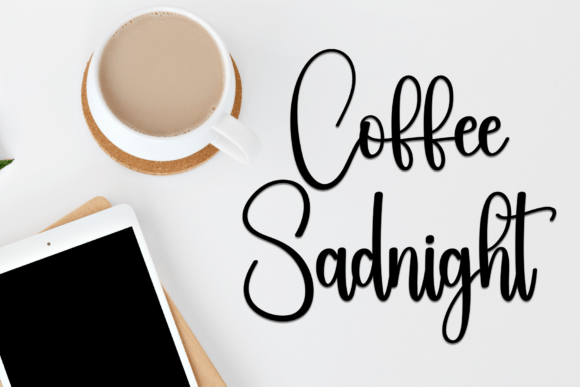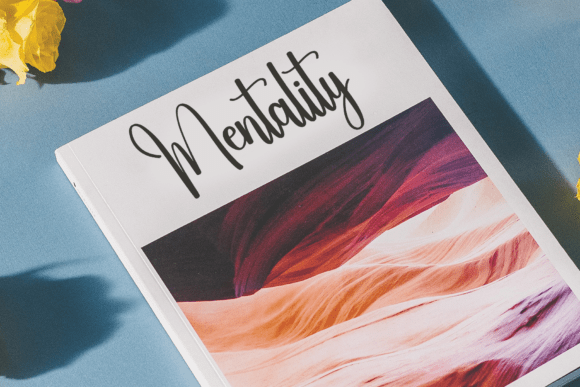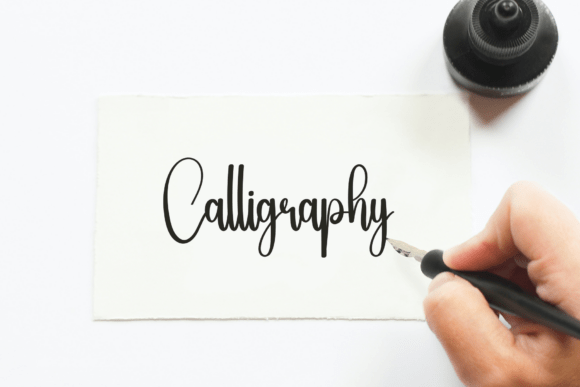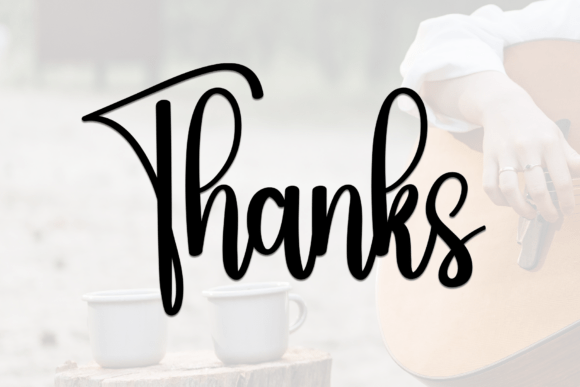
Enter the Aesthetic Font, a stylish script font that exudes creativity and modern elegance. Designed to capture the beauty of hand-drawn calligraphy with a contemporary flair, this font is perfect for logos, invitations, packaging, and social media graphics that demand an artistic and sophisticated touch.
As a valuable tool in every designer’s arsenal, the Aesthetic Font delivers both visual charm and versatility, making it an essential addition to any design project seeking to make a lasting impression.
- Unique Characteristics: Features a distinctive blend of modern and vintage elements, with elegant lines, subtle curves, and a touch of sophistication
Aesthetic Font Review
I’ve had the chance to work with the Aesthetic Font, and overall, I think it’s a solid choice for designers looking for a visually appealing font. ✨ Here are some things I like about it:
- Unique style: The Aesthetic Font has a distinctive, hand-drawn feel that sets it apart from more generic fonts.
- Customization options: It’s available in a range of weights and styles, making it easy to find the perfect fit for your project.
- Great for headings: The font is particularly effective for headings and titles, where you want to make a statement.
- Limited legibility: At smaller font sizes, the Aesthetic Font can become difficult to read, particularly in body text.
- Not suitable for body text: While it’s great for headings, the font is not as effective for large blocks of body text, where legibility is key.
- Not ideal for small screens: The font’s unique style can make it harder to read on smaller screens, such as mobile devices.
Overall, I think the Aesthetic Font is a great choice for designers who want to add some visual interest to their projects. Just be mindful of its limitations and use it where it shines – in headings and titles.
For a more polished look, use Aesthetic Font in combination with other design elements, such as textures and graphics.
For a more professional look, use Aesthetic Font in combination with other design elements, such as vector graphics and layer styles.
For a more polished look, use Aesthetic Font in combination with other design elements, such as images and graphics.
Some popular use cases for Aesthetic Font include:
- Blog posts and articles
- Social media graphics and posts
Remember to pair Aesthetic Font with other design
Alternatives to Aesthetic Font
Great Vibes Font is a beautiful, elegant script font perfect for adding a touch of sophistication to designs. It’s ideal for use in wedding invitations, branding, and other high-end projects. Compared to Aesthetic Font, Great Vibes Font has a more refined and luxurious feel, making it suitable for high-end designs.
Pacifico Font is a clean and modern script font that’s perfect for creating a relaxed, beachy vibe. It’s ideal for use in travel brochures, restaurant menus, and other casual projects. Compared to Aesthetic Font, Pacifico Font has a more laid-back and casual feel, making it suitable for projects that require a relaxed tone.
Lobster Font is a fun and playful script font that’s perfect for adding a touch of whimsy to designs. It’s ideal for use in children’s books, advertising, and other projects that require a lighthearted tone. Compared to Aesthetic Font, Lobster Font has a more playful and humorous feel, making it suitable for projects that require a touch of humor.
Q: What are the technical specifications of Aesthetic Font?
Aesthetic Font is available in several weights, from Light to Black, with corresponding italic styles. The font is designed in OpenType format (.otf) and TrueType format (.ttf). It supports a wide range of languages, including Latin, Cyrillic, and Greek. Aesthetic Font is optimized for font sizes between 10px and 24px and is designed to work well on devices with screen resolutions up to 4K.